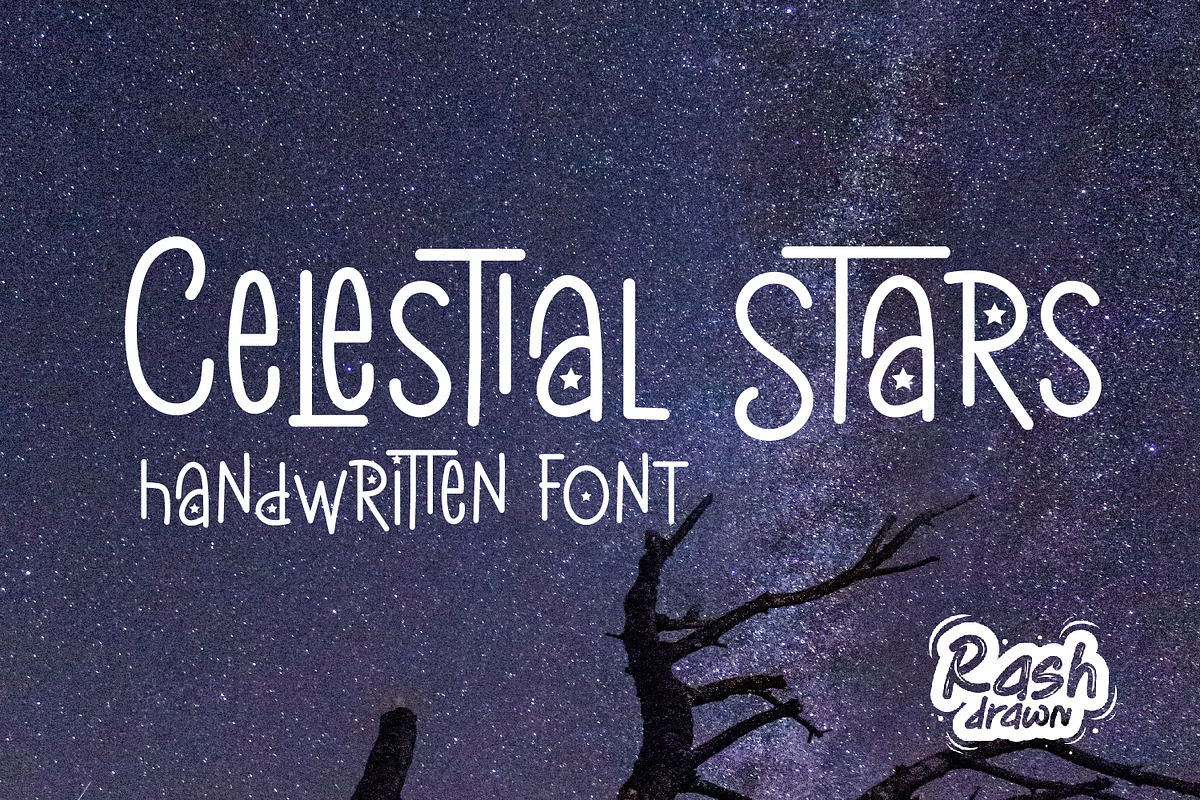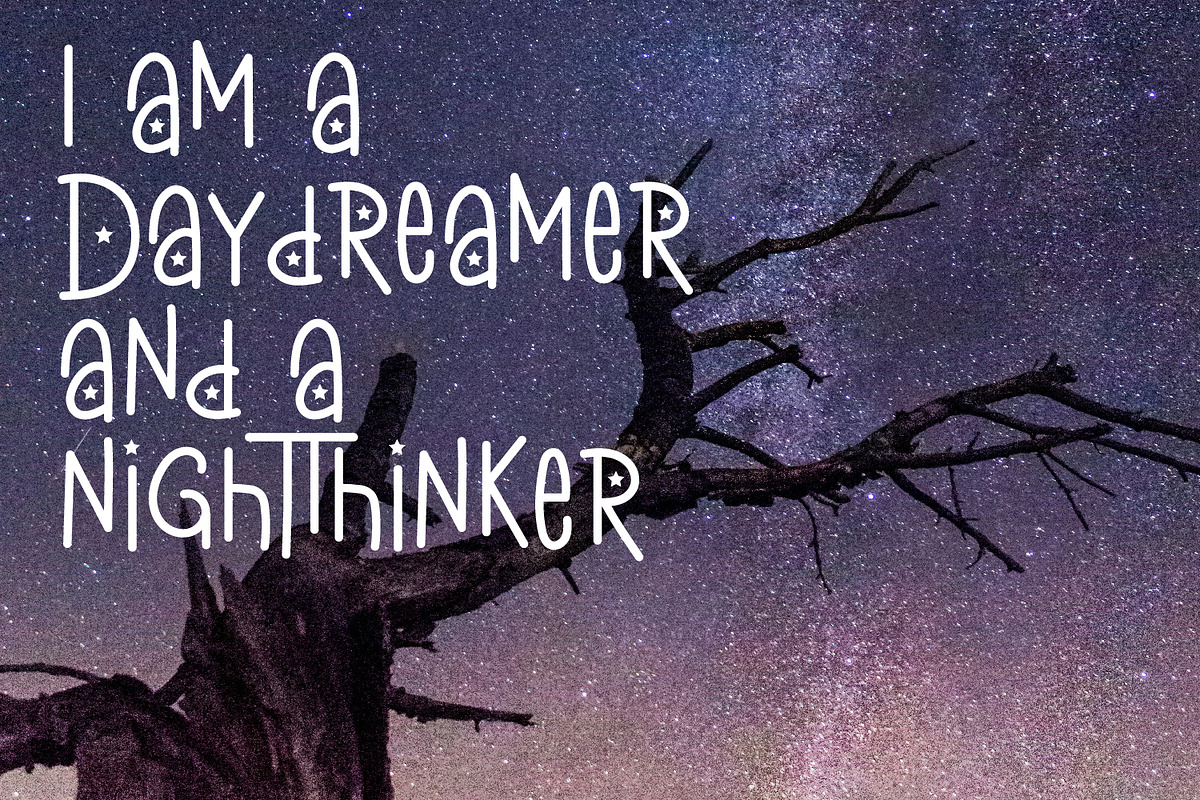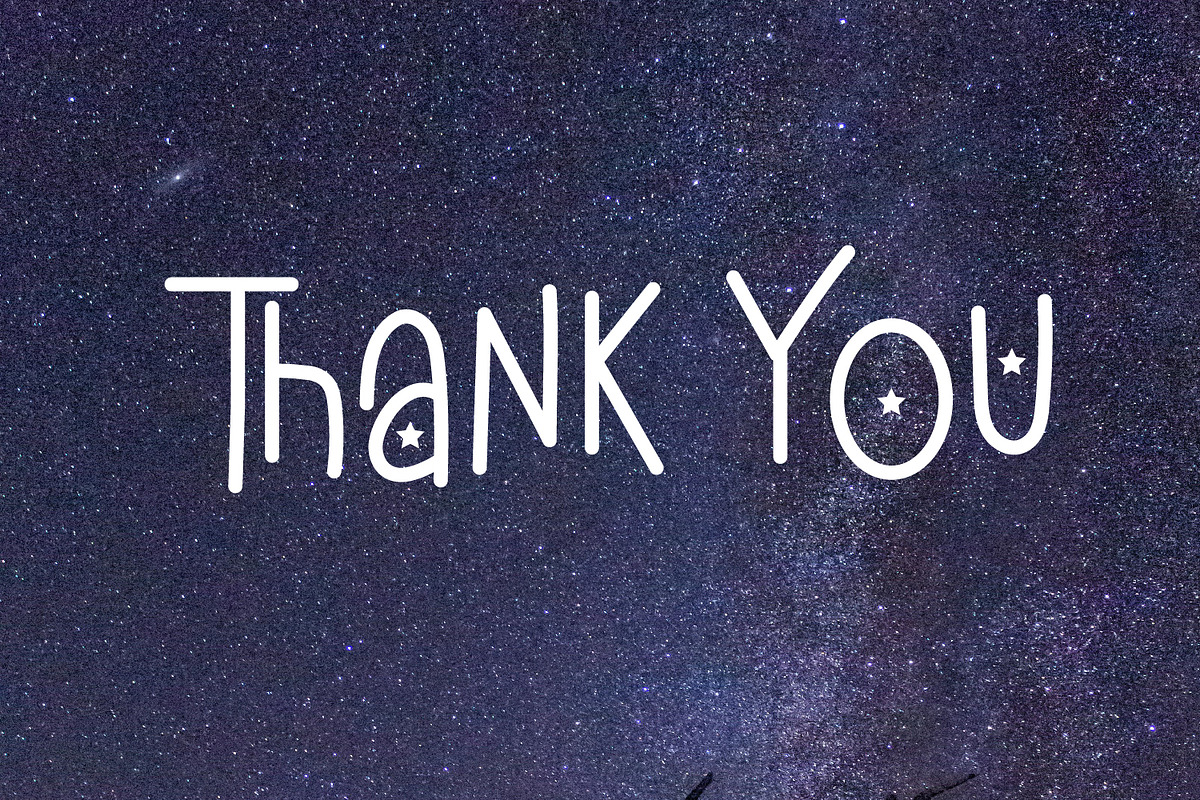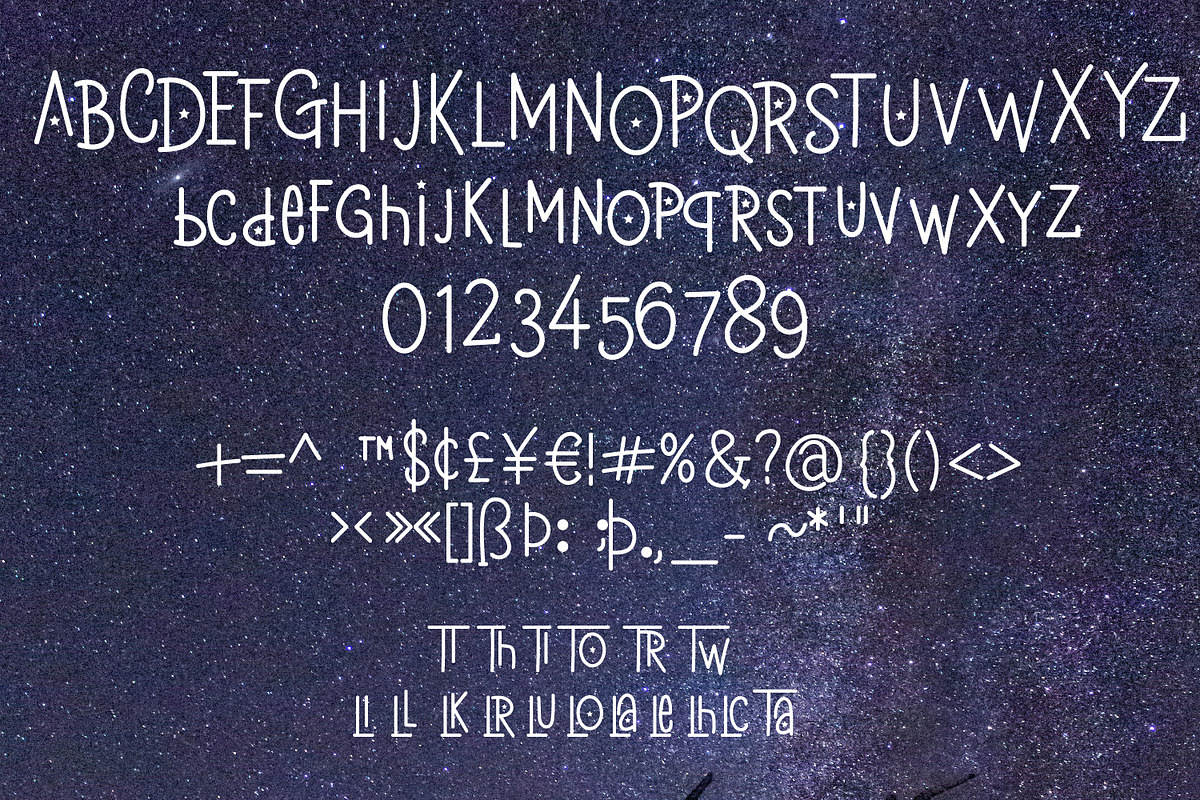
Celestial stars
Celestial stars is a handwritten brush font with a contemporary atmosphere and impeccable form, inspired by timeless classic calligraphy. It will add elegance and class to any of your design projects.